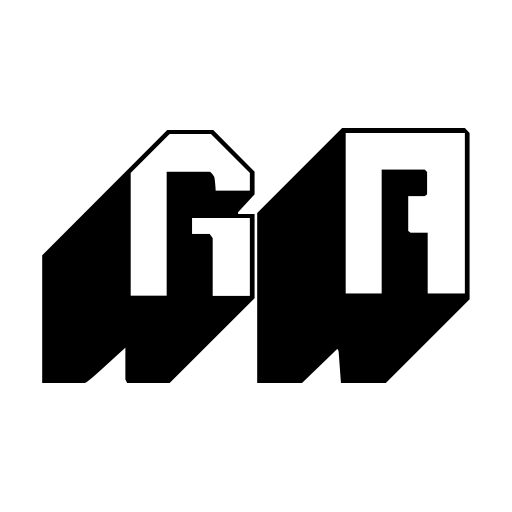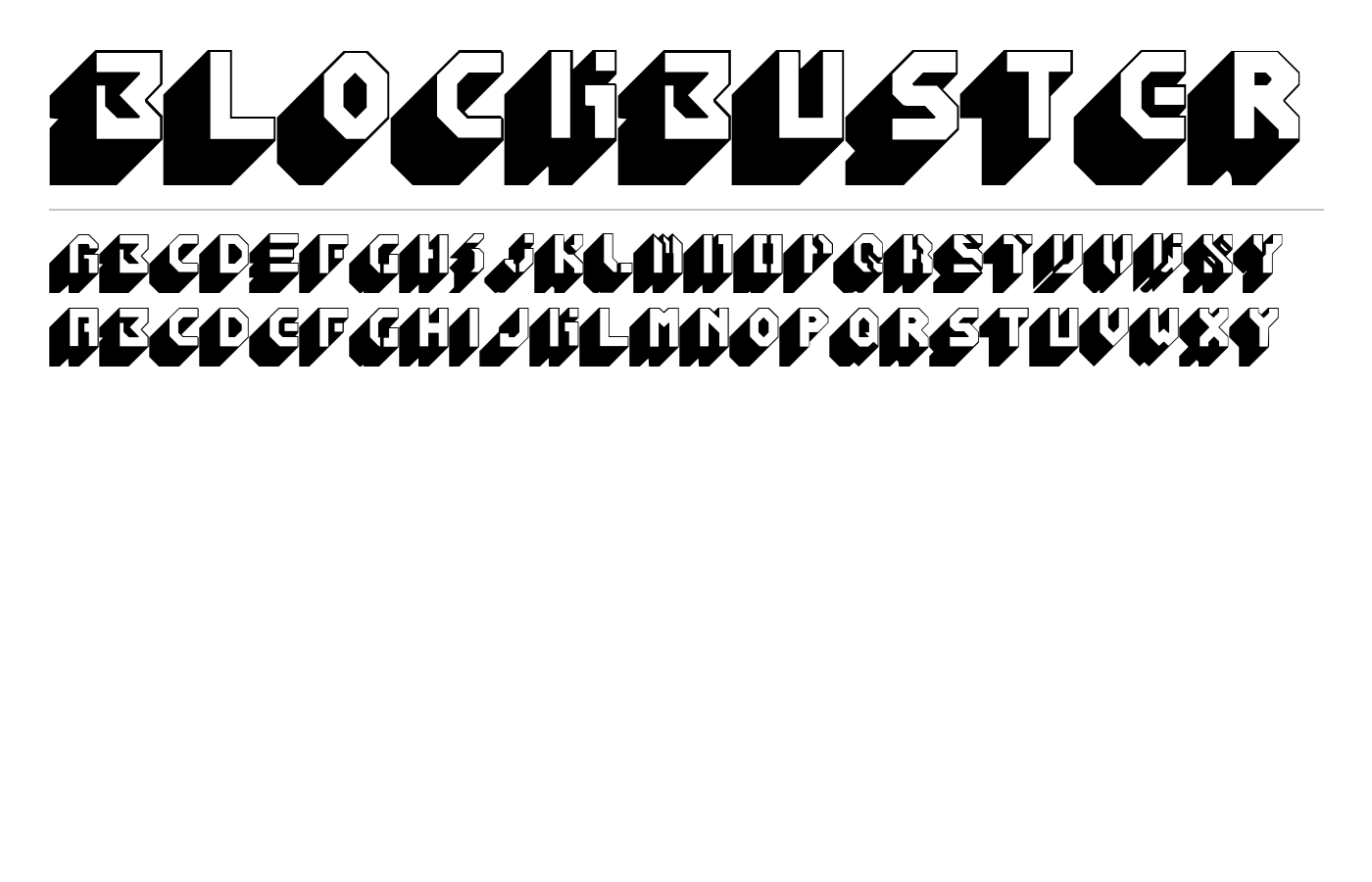
Blockbuster Font is a bold, geometric sans serif typeface with a strong 3D shadow effect that gives it a dynamic, retro-futuristic feel. Its blocky, angular letterforms and high contrast between solid shapes and sharp edges make it eye-catching and perfect for headlines, logos, and display uses where impact and style are key. This font works best for projects that want to convey energy, strength, and a vintage-modern vibe, such as posters, branding, and entertainment media.
Blockbuster Font